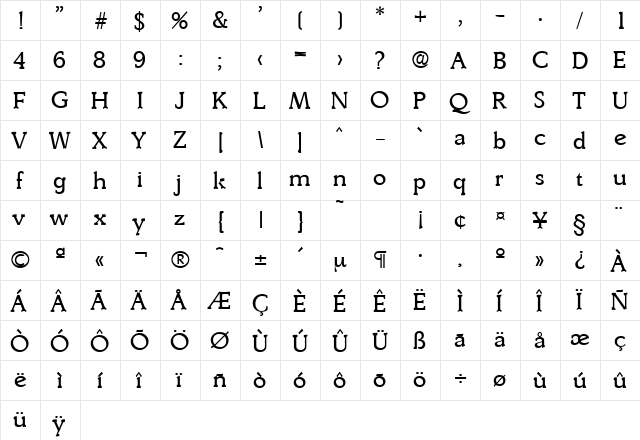
Derringer-Serial Regular
Design Context for Derringer-Serial Typeface
Derringer-Serial offers clean, dependable letterforms without strong stylistic allegiance, making it a practical choice for designers who need flexibility.